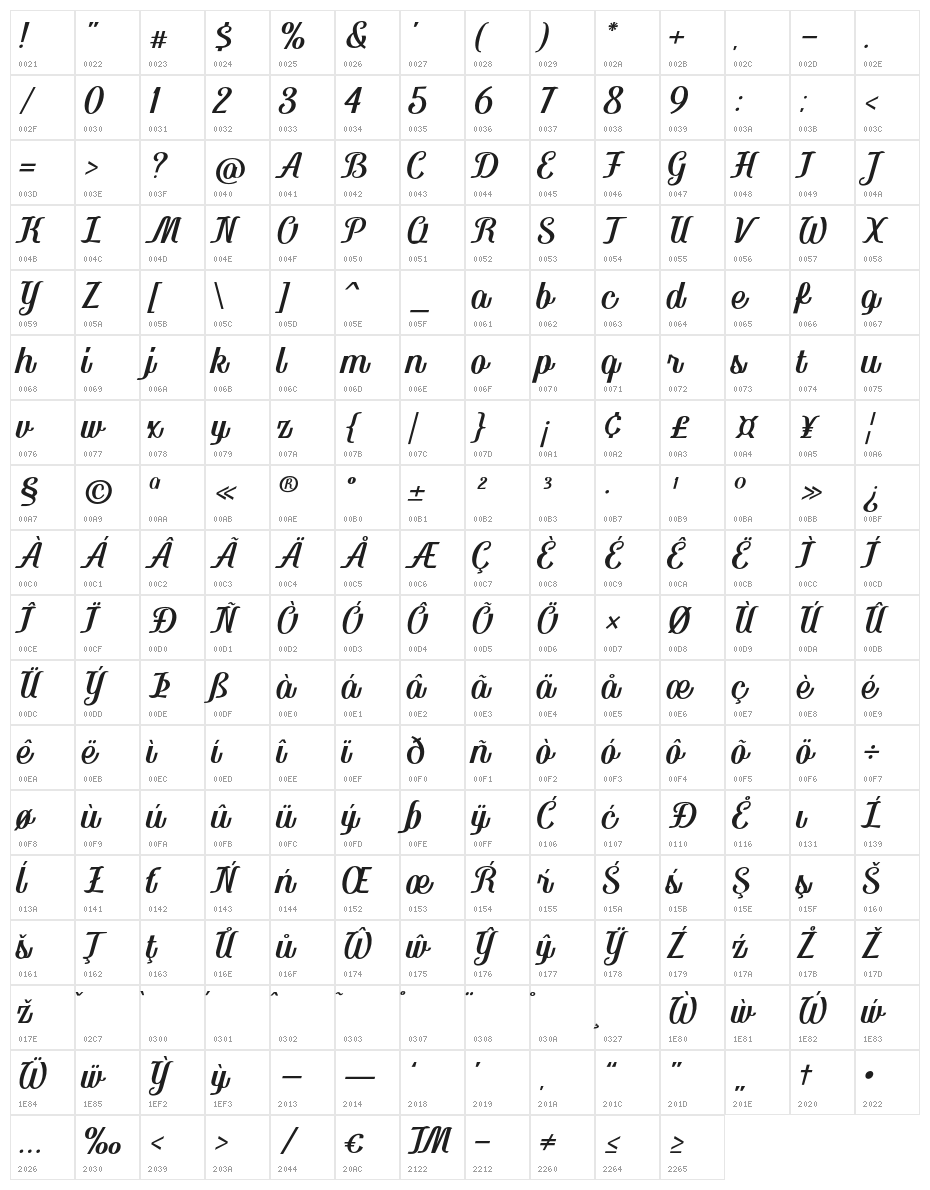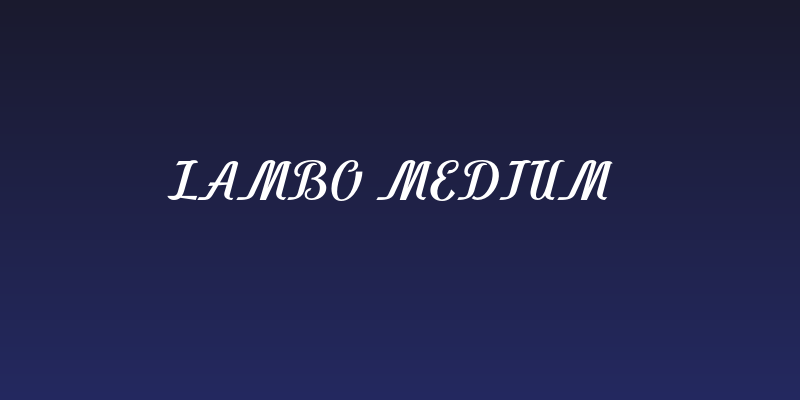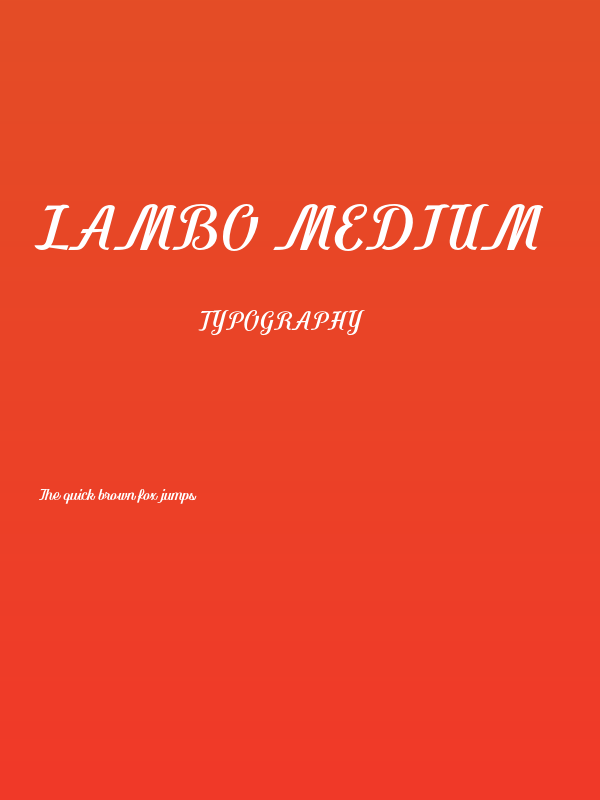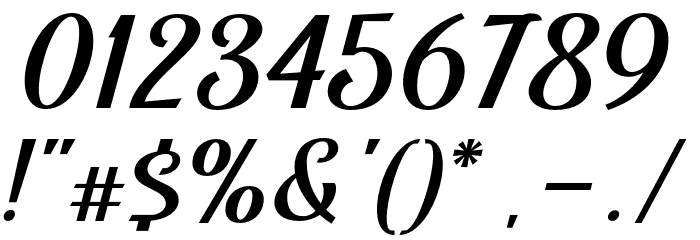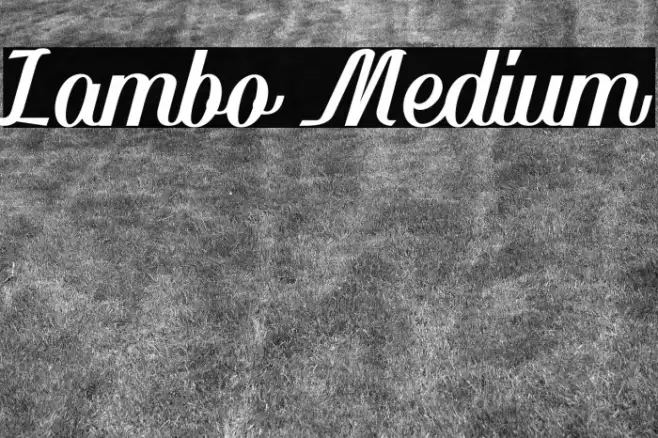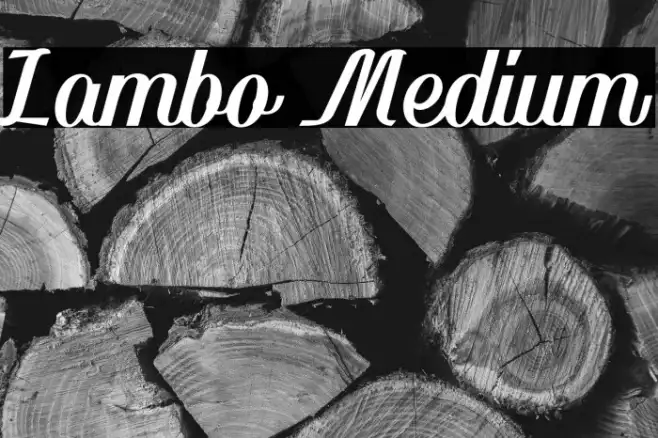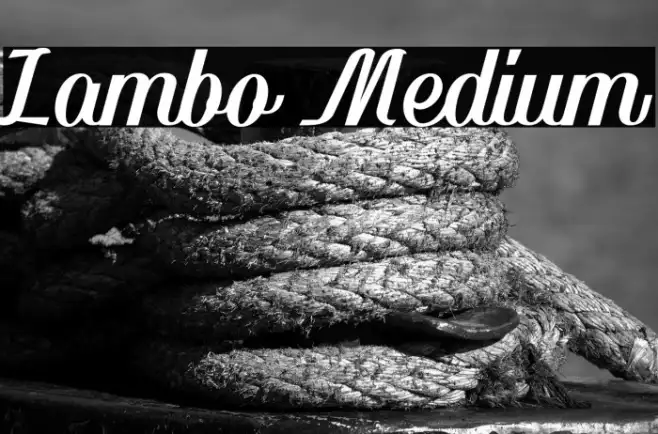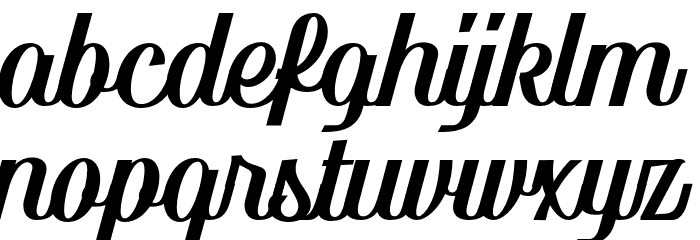
Lambo Medium Font
Lambo Medium Description
This font features a dynamic and elegant script style, characterized by its smooth, flowing curves and slightly slanted letters. The uppercase letters are bold and prominent, with a sophisticated flair that adds a touch of formality. The lowercase letters maintain a consistent rhythm, enhancing readability while retaining a stylish appearance. Numbers and special characters are designed to complement the overall aesthetic, ensuring a cohesive look across all text elements. The font's design is versatile, making it suitable for a variety of applications where a touch of elegance and modernity is desired.
| Overall Style | Elegant, Modern |
| Proposed Projects | Ideal for wedding invitations, luxury branding, elegant packaging, and stylish editorial design. |